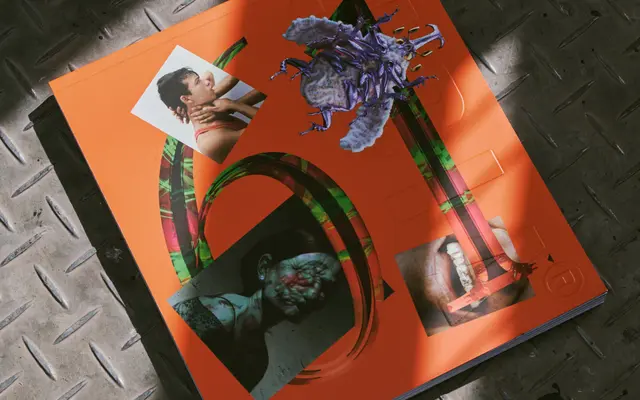
Supply
Pangram Foundry · Mat Desjardins · 2021
A geometric sans family by Mat Desjardins, drawn from industrial and architectural references, available in a sans and monospaced cut across eight weights each with variable font support.
Designed by Mat Desjardins with sharp angles and precise curves informed by industrial design and architecture, Supply comes in two subfamilies: a geometric sans and a classic monospace. Each cut runs from Thin to Black across eight styles, with a variable font available for both, giving 360 glyphs per style. The pairing of sans and mono within a single family makes it well-suited to technical branding, editorial work and interface design.
Described as inspired by industrial design and architecture with precise curves and sharp angles; the sans subfamily is a clean geometric sans, while the mono variant is monospaced. Classified as geometric sans for the primary cut.